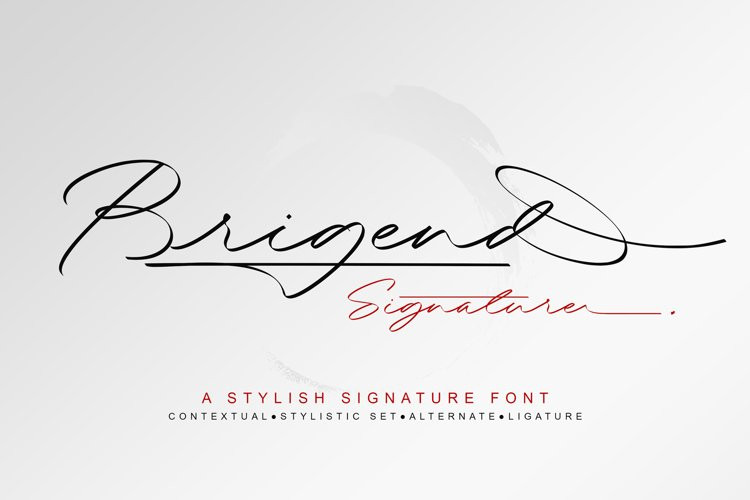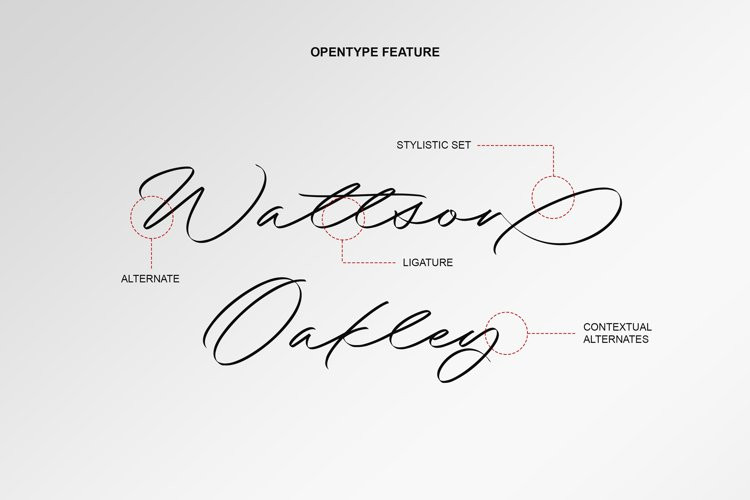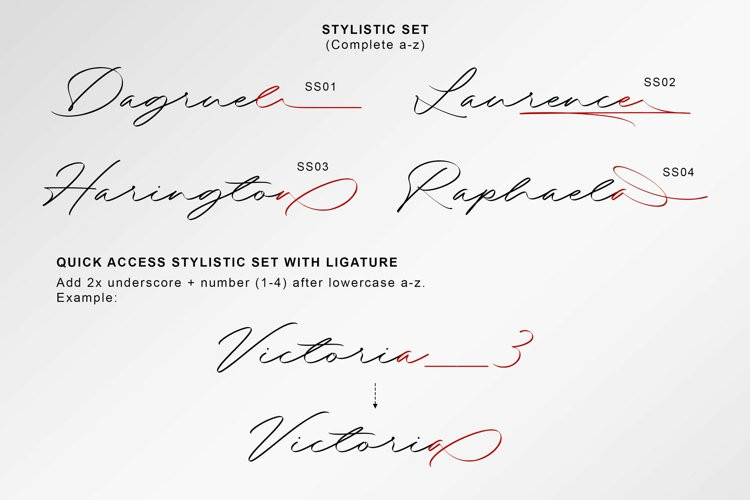
Brigend Font
Brigend FontBrigend Signature is a stylish signature font, with a natural & stylish flow. Brigend Signature Font is perfect for many different project such as logos & branding, invitation, stationery, wedding designs, social media posts, advertisements, product packaging, product designs, label, photography, watermark, special events or anything.